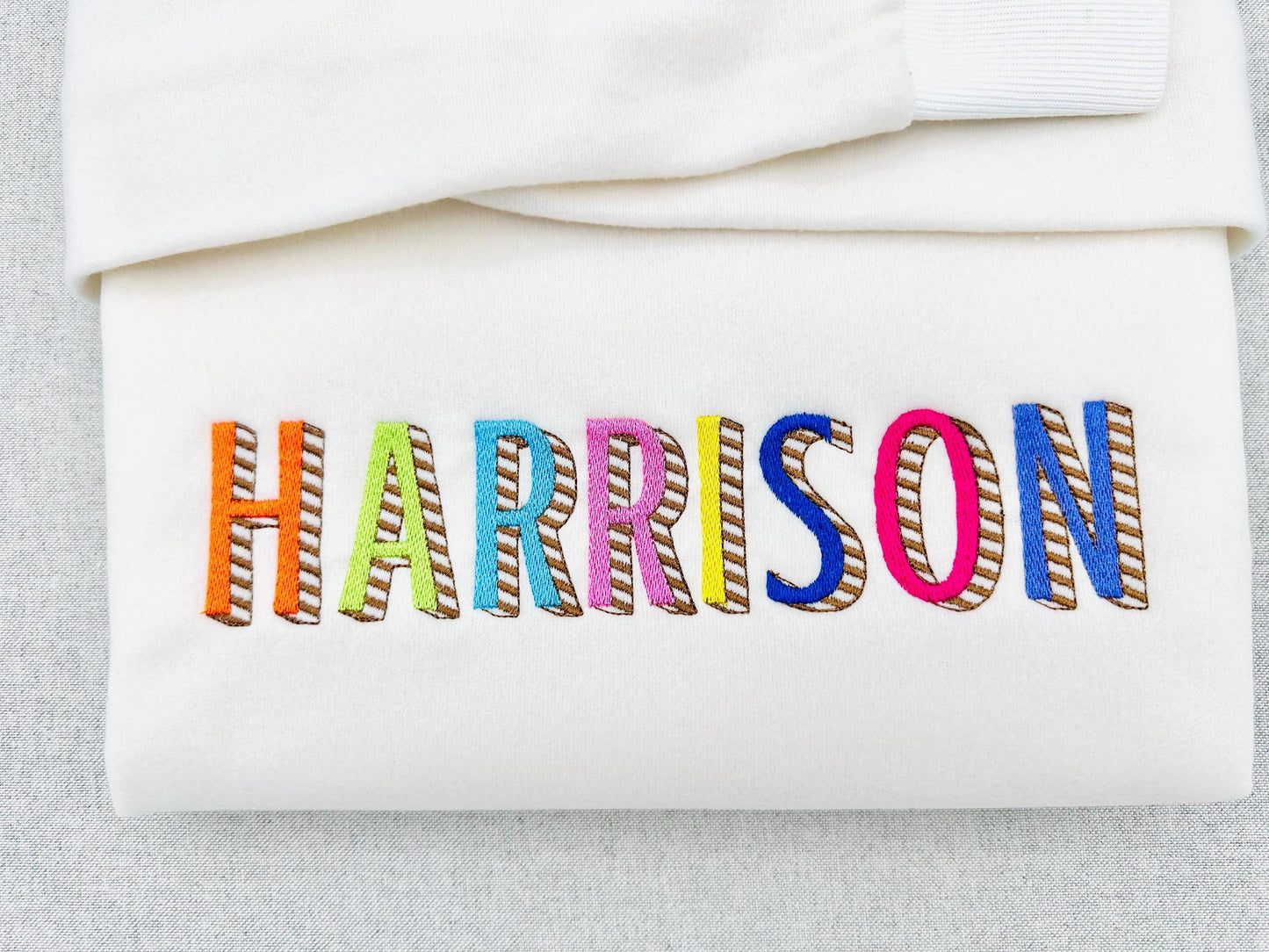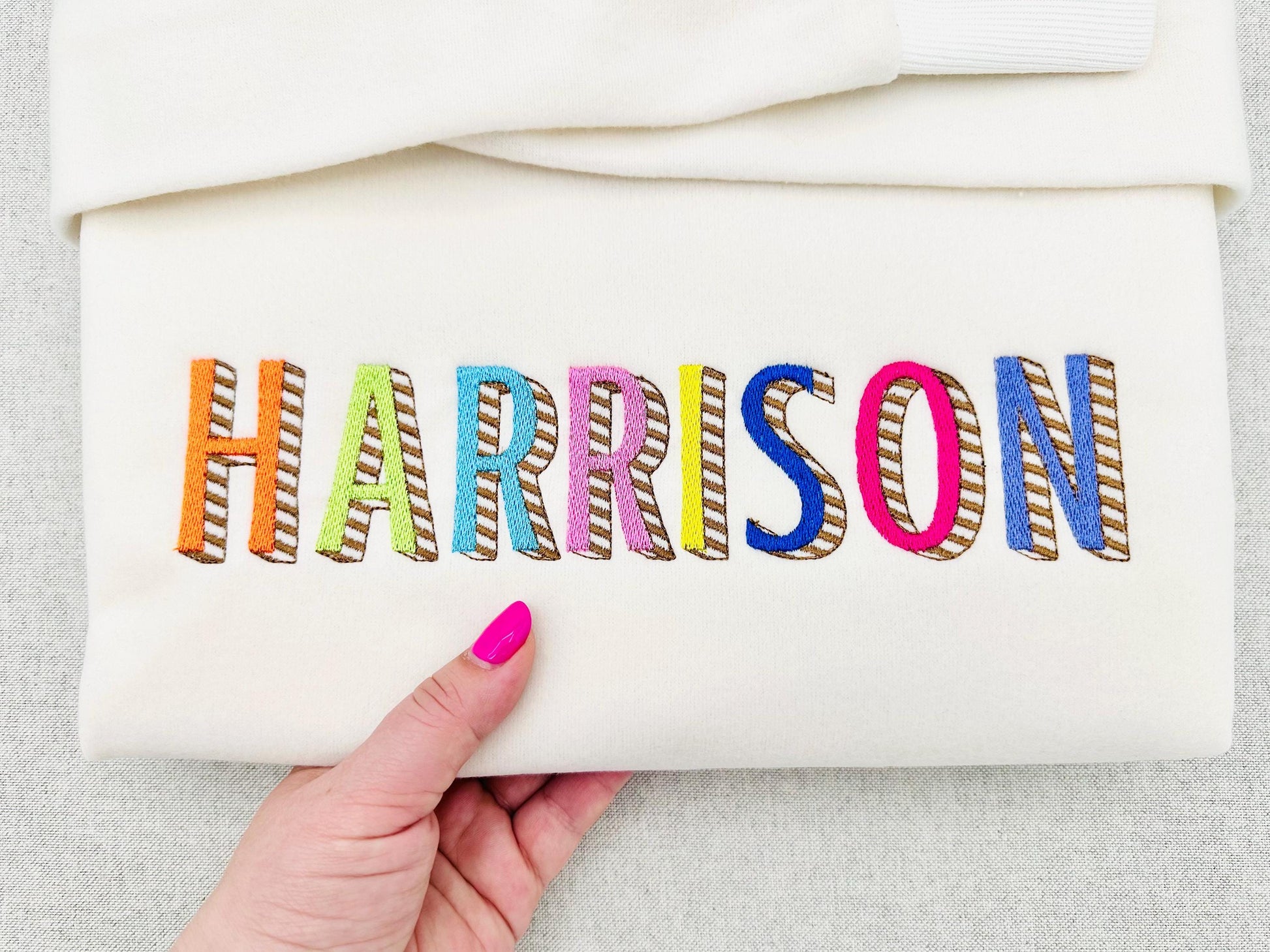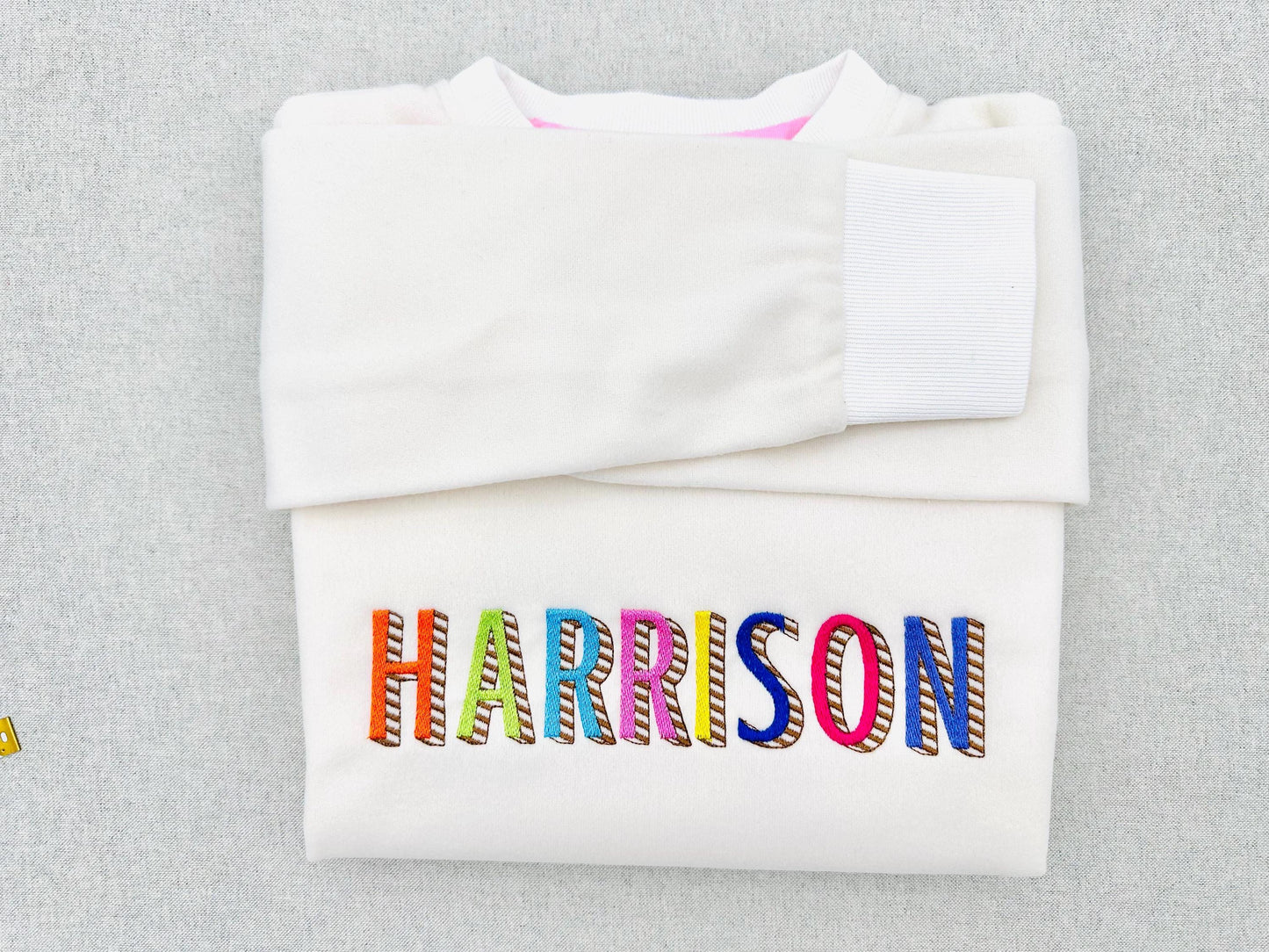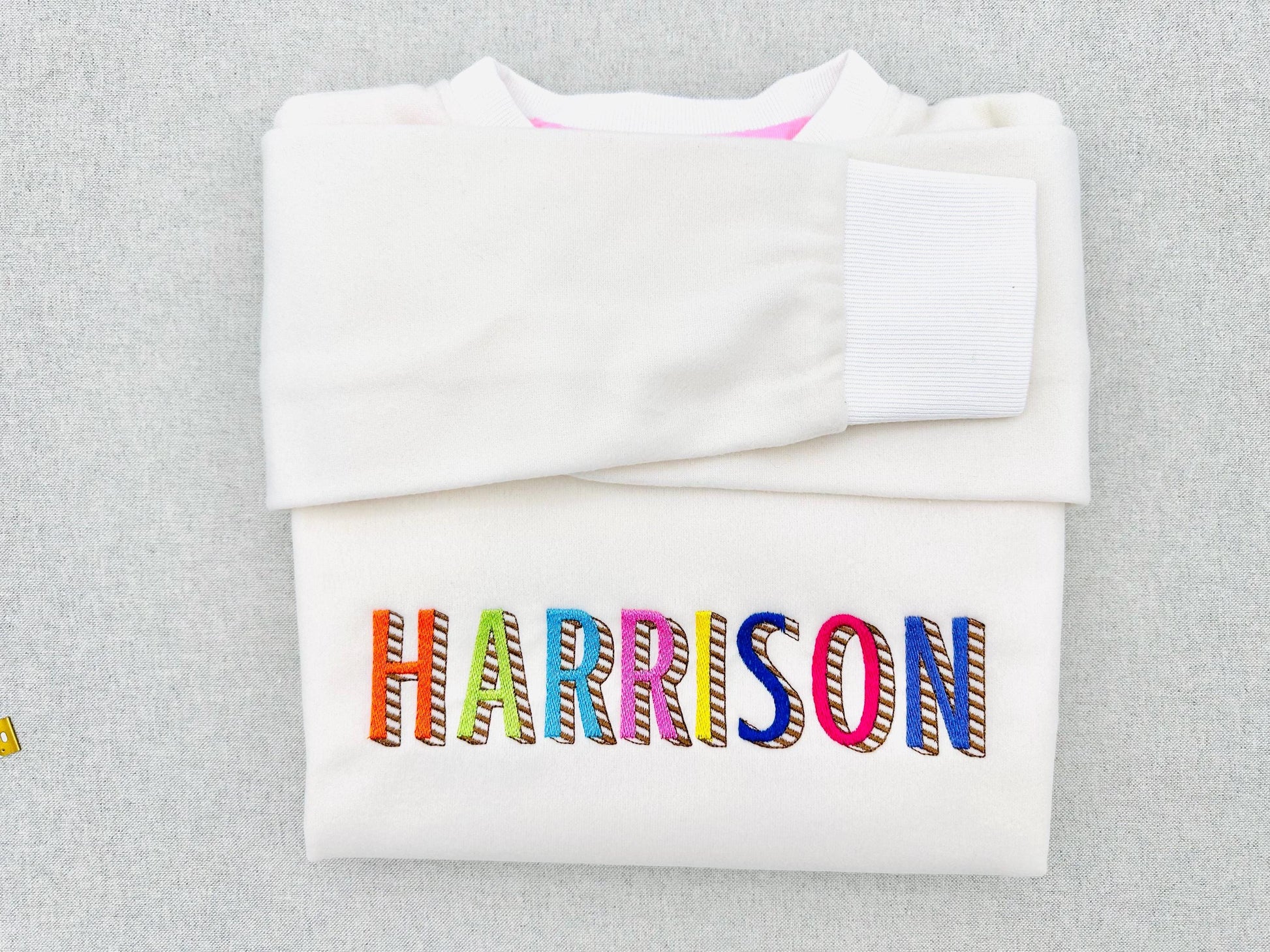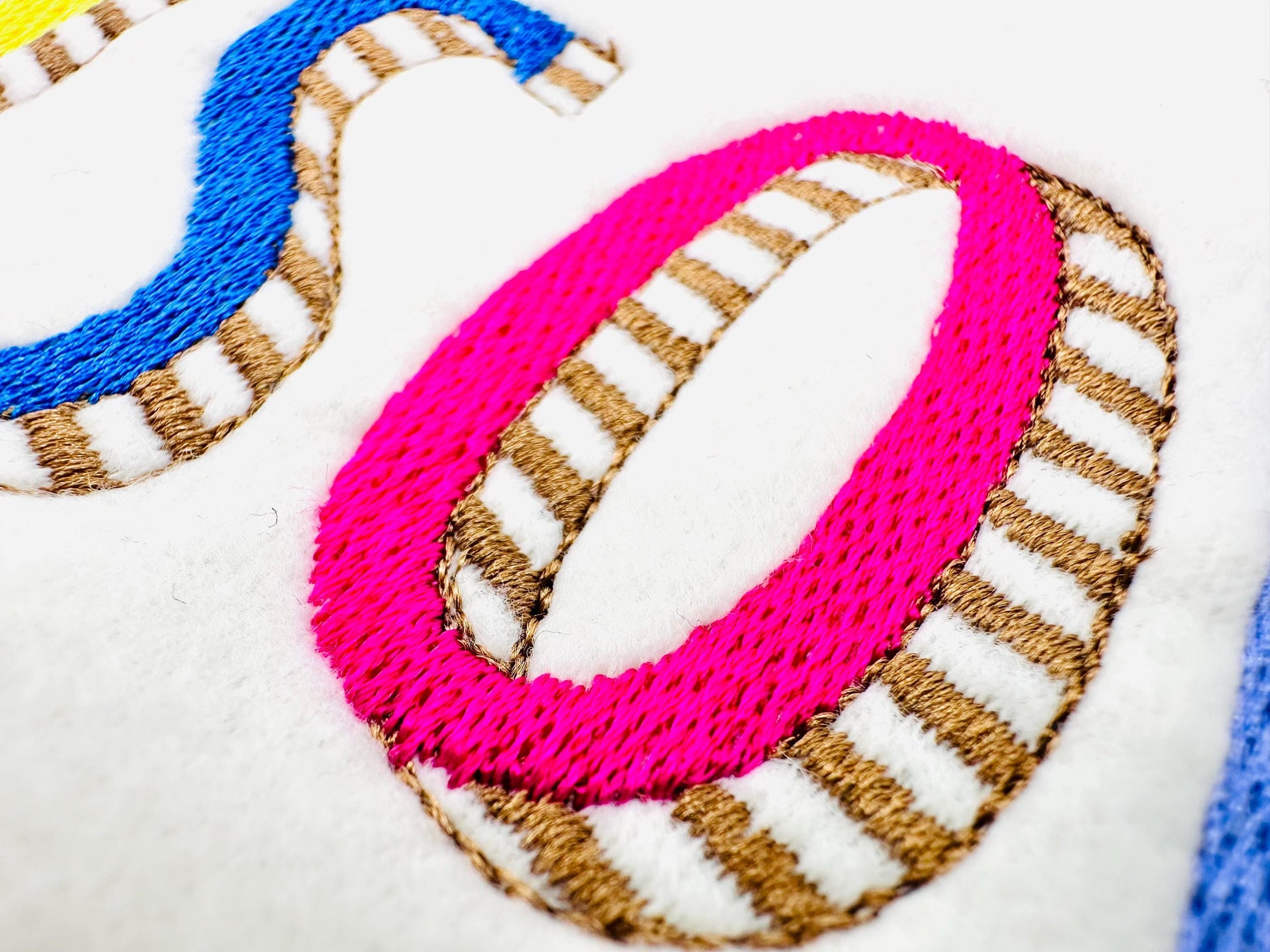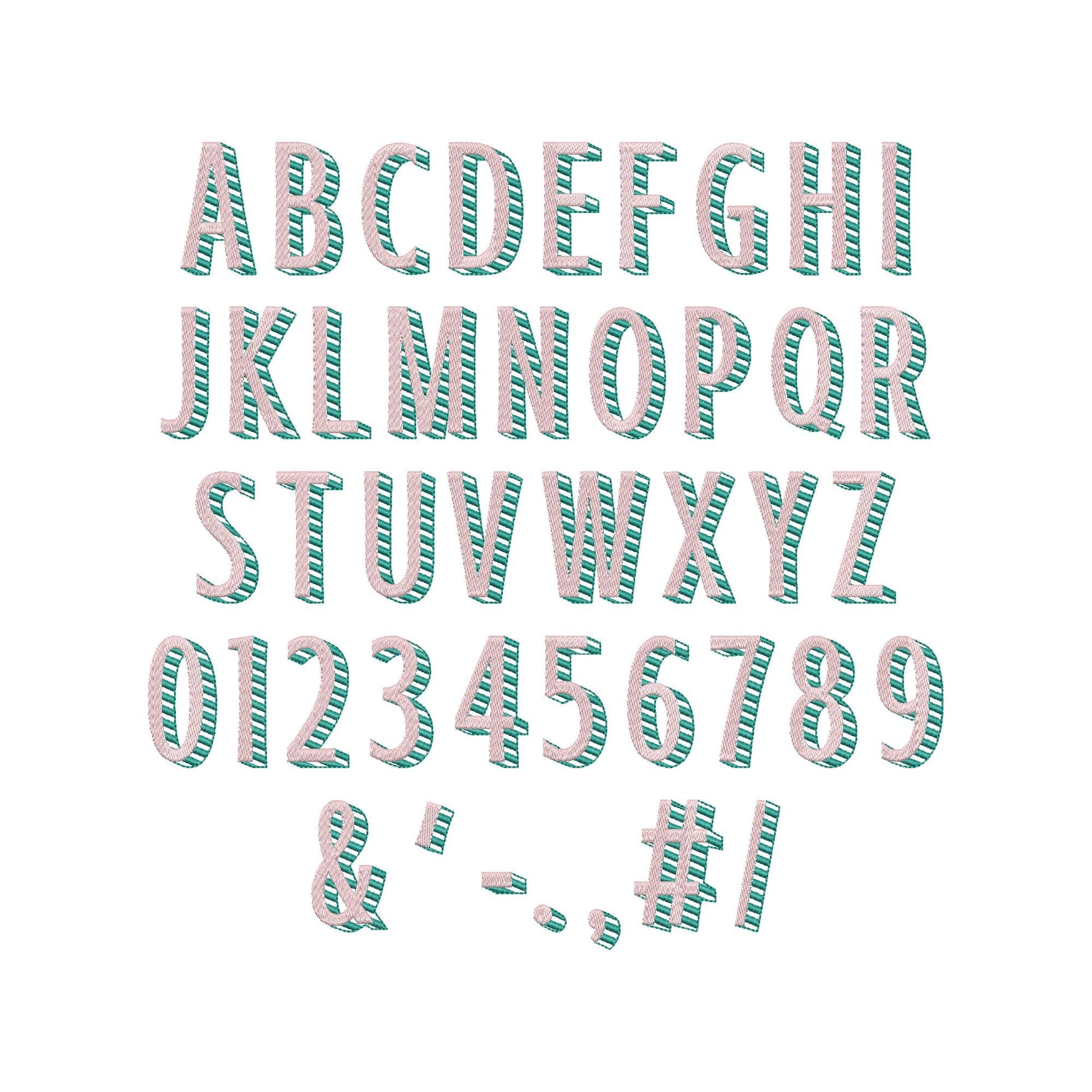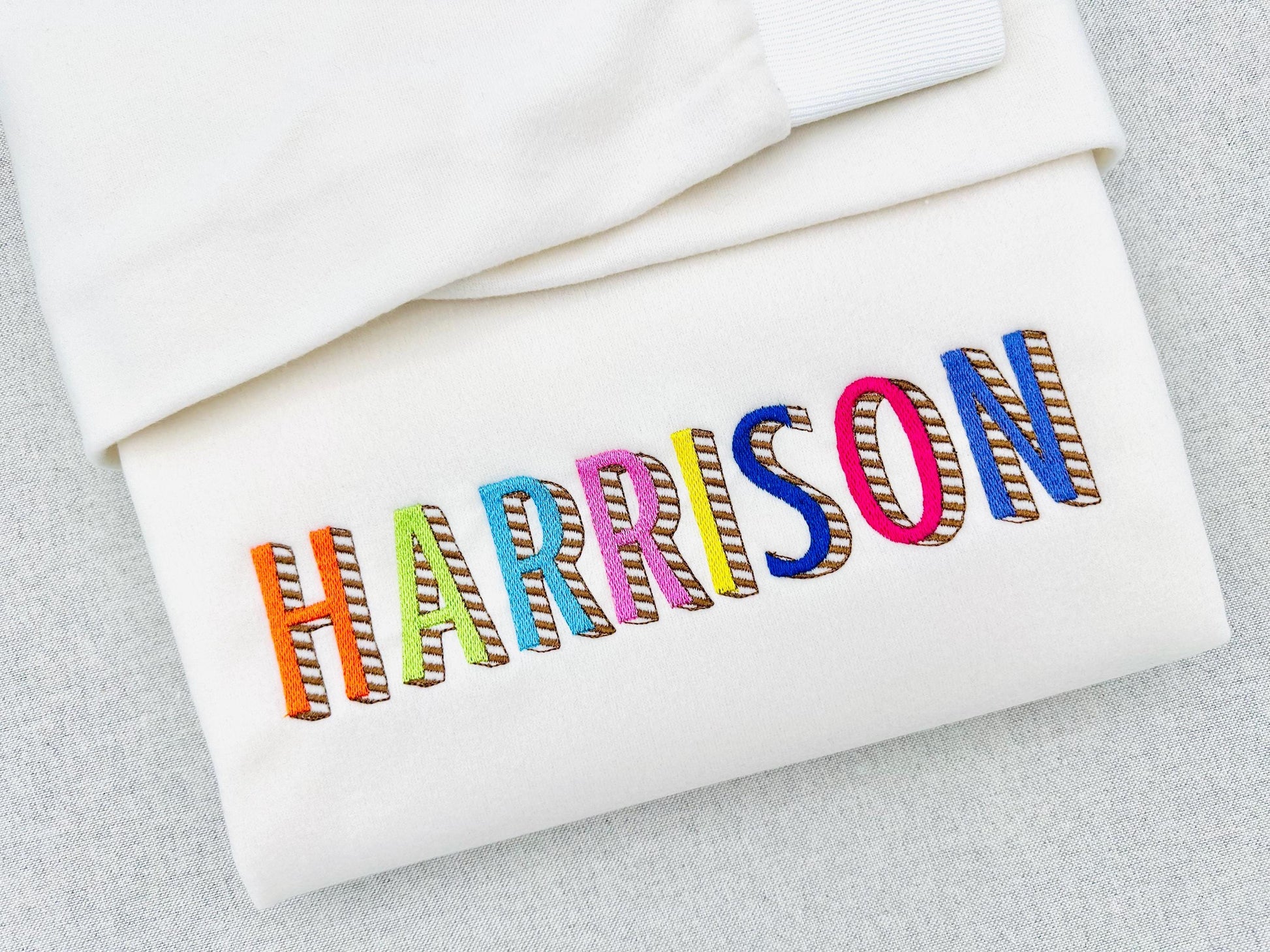
Or click to open the linkA narrow block font in fill stitch with an open striped shadow. Great for monograms, names and numbers on shirts, sweatshirts and bags.
The letters come in seven sizes: 1, 1.6, 2.2, 2.6, 3, 3.4 and 3.9 inches. Includes uppercase letters A-Z, numbers 0-9 and punctuation. The letters are fully filled, while the striped shadow lets the fabric show through.